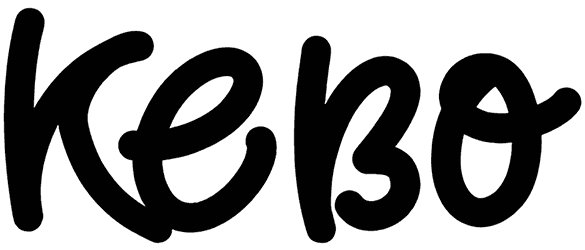
Kebo Font
Kebo is a playful and cute script font that can make children’s book covers and comedy movie posters stunning. Although this handwritten font does not include numbers, it is a special option for graphic artists who are looking for charming letters to create an authentic and personal feeling in their designs.